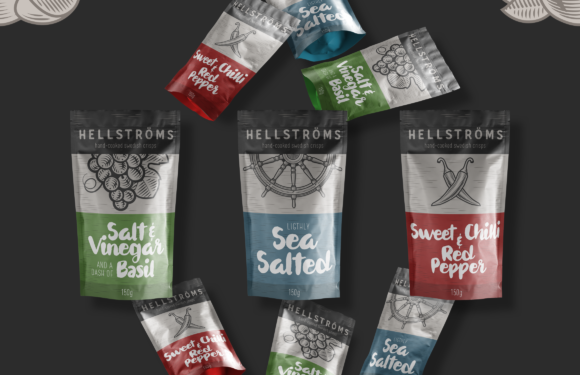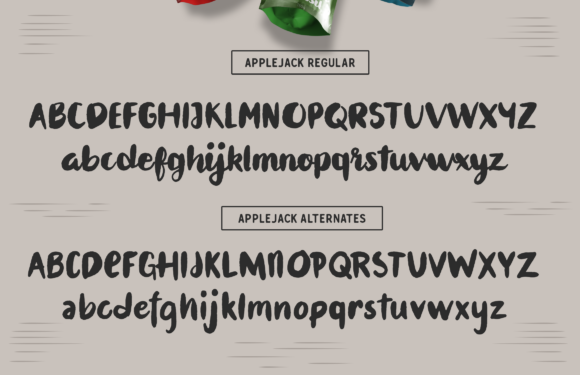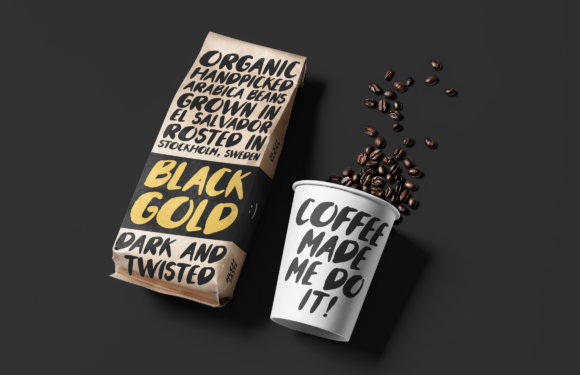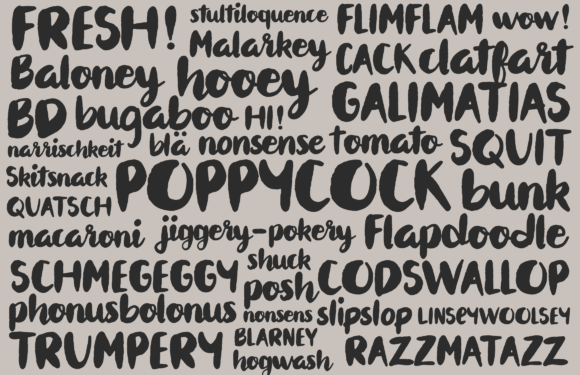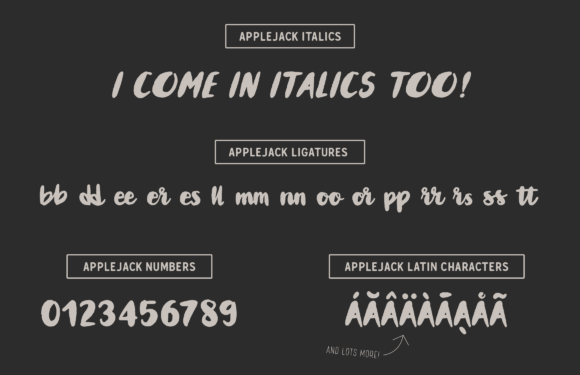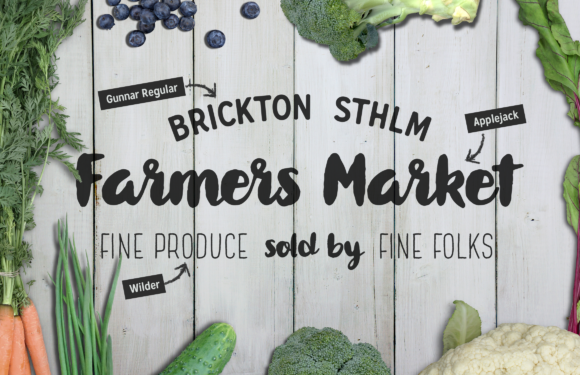
The Perfect Brush Script: Unleashing the Charm of Applejack Font
There’s something magical about the first time you see your brand’s logo come to life, perfectly balanced on a beautiful package design. It’s a moment that makes all the hard work worth it, and one that never gets old. For designers, it’s a feeling that’s hard to replicate, but with the right tools, it’s definitely achievable.
One such tool that can help you create that authentic appeal is the Applejack Font. This deliciously chubby brush script font is designed to give your projects a unique, hand-lettered feel that’s impossible to resist. Whether you’re working on a packaging design or a branded project, Applejack Font is the perfect addition to your toolkit.
By incorporating Applejack Font into your designs, you can add a touch of personality and warmth that’s sure to engage your audience. And with its versatility, you can pair it with a delicate sans serif to create a look that’s truly unique and eye-catching.
Applejack Font Key Features
- Unique Characteristics: The font features a distressed, vintage aesthetic with subtle texture and wear, evoking a sense of nostalgia and charm.
Applejack Font Review
First off, let me say that I love the playful, rustic vibe that the Applejack Font brings to the table. The font is perfect for adding a touch of whimsy to your designs ✨. It’s great for use in branding, packaging, and even digital products. The font’s unique characteristics, such as its irregular letterforms and quirky ligatures, make it stand out from more traditional sans-serif fonts ✨.
One thing that works really well is the font’s flexibility. It’s available in a range of weights and styles, making it easy to use in different contexts. Whether you’re creating a bold, eye-catching headline or a subtle, background text, Applejack Font has got you covered ✨.
- ⚠️ Not ideal for body text – due to its playful nature, Applejack Font may not be the best choice for large blocks of text.
Overall, I think the Applejack Font is a great addition to any designer’s toolkit. While it may have some limitations, its unique charm and flexibility make it a great choice for the right projects. With a little creativity, you can use this font to create truly eye-catching designs ✨.
Tips for Getting the Most Out of Applejack Font
To get the most out of the Applejack font, use it for designs that require a rustic, vintage feel. It pairs well with earthy colors and distressed textures. Experiment with different font sizes and styles to create a unique look.
The Applejack font is commonly used for:
- Food and drink labels
- Rustic wedding invitations
- Outdoor and adventure-themed designs
- Distressed or vintage-style logos